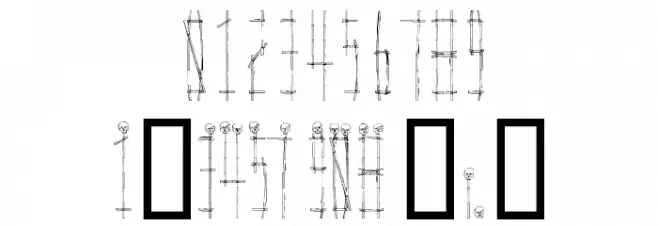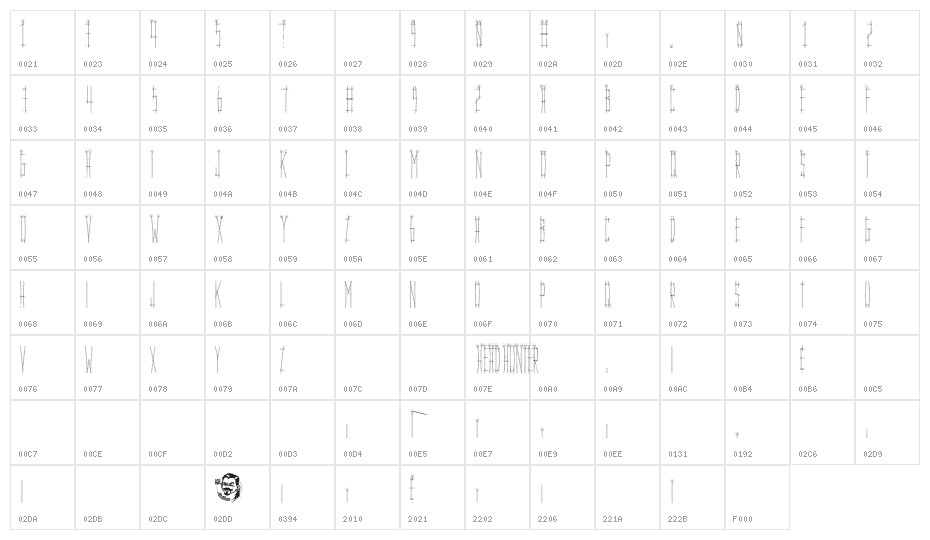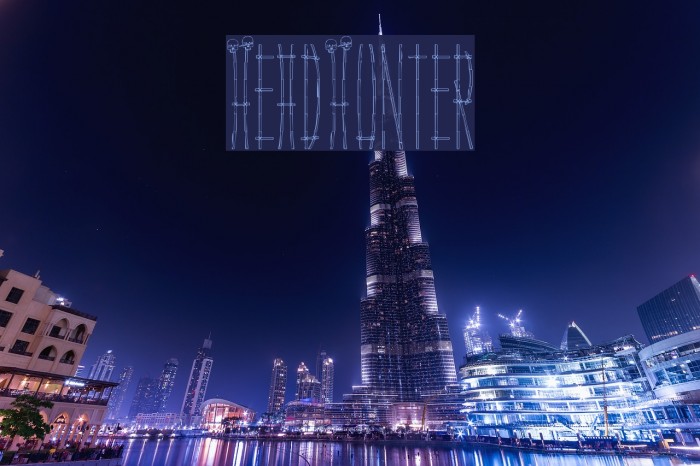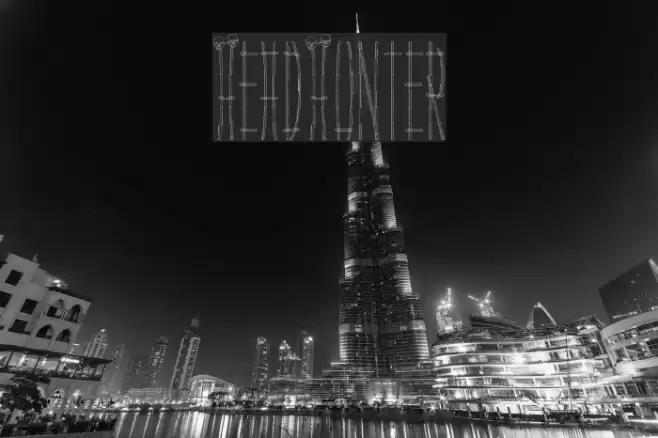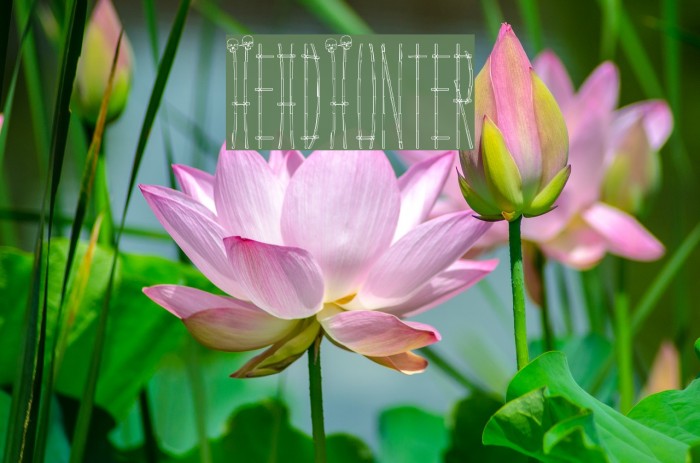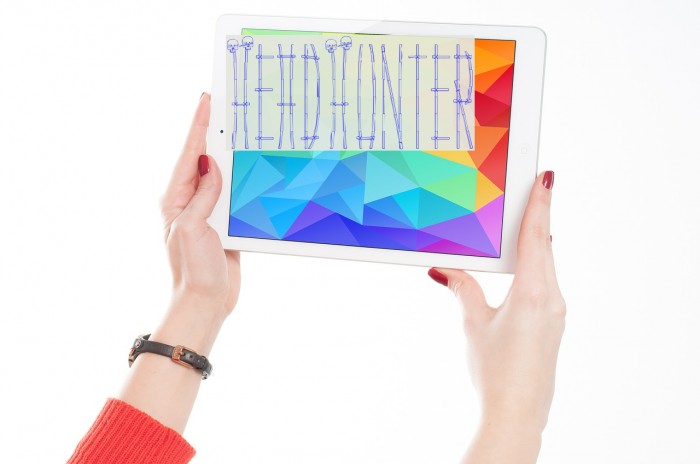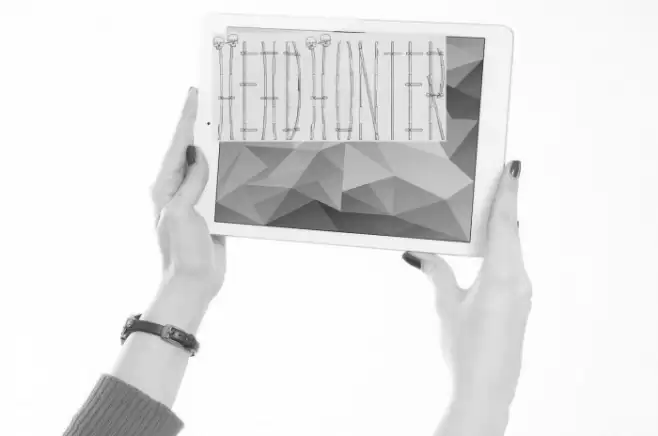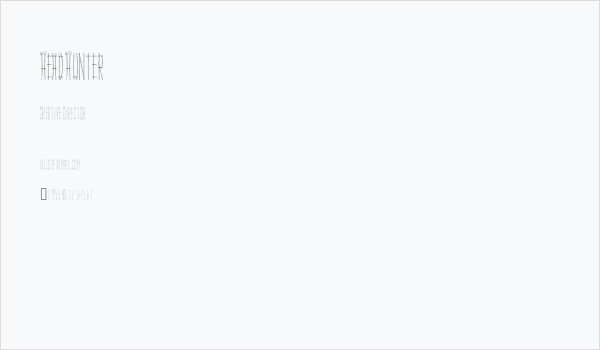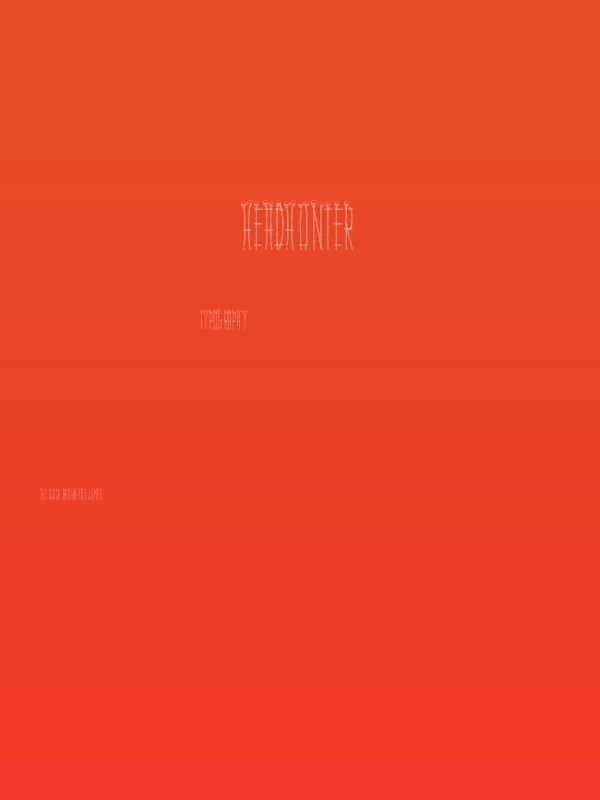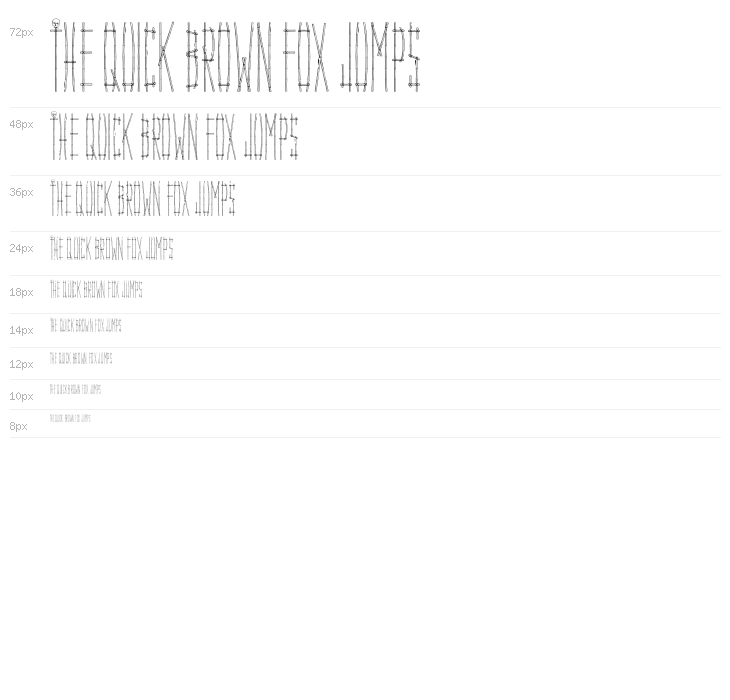
HeadHunter Font
HeadHunter Description
This font features a unique and eerie design, with each character resembling a skeletal structure. The letters are composed of bone-like elements, giving it a distinct and macabre appearance. The uppercase and lowercase letters maintain a consistent skeletal theme, while the numbers and special characters are similarly styled, adding to the cohesive look. The font's intricate details and unconventional style make it stand out, perfect for projects requiring a spooky or Halloween-themed aesthetic. Its decorative nature suggests it is best used in larger sizes to fully appreciate the detailed design.
Proposed ProjectsIdeal for Halloween invitations, horror movie posters, themed event flyers, or any project requiring a spooky, decorative touch.